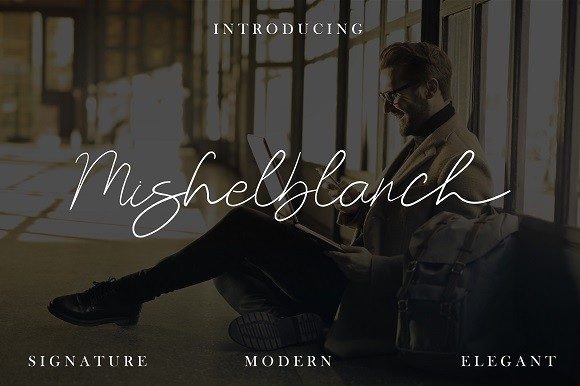
**Introducing Mishelblanch: The Enchanting Script Font for Unforgettable Branding**
Indulge in the allure of Mishelblanch, a captivating script font crafted to elevate your branding endeavors to new heights. This exquisite typeface exudes refinement and sophistication, captivating audiences with its delicate strokes and undeniable charm.
Mishelblanch's intricate letterforms dance across the page, each character a testament to precision and artistry. Its subtle curves and graceful flourishes evoke a sense of timeless elegance, making it an ideal choice for luxury brands, wedding invitations, and any project seeking an air of distinction.
But what truly sets Mishelblanch apart is its versatility. With a range of stylish alternates and ligatures, this font empowers you to craft unique and eye-catching designs that leave a lasting impression. Whether you're creating eye-catching logos, elegant brochures, or captivating social media posts, Mishelblanch effortlessly adapts to your vision, ensuring your message shines with unparalleled charisma.